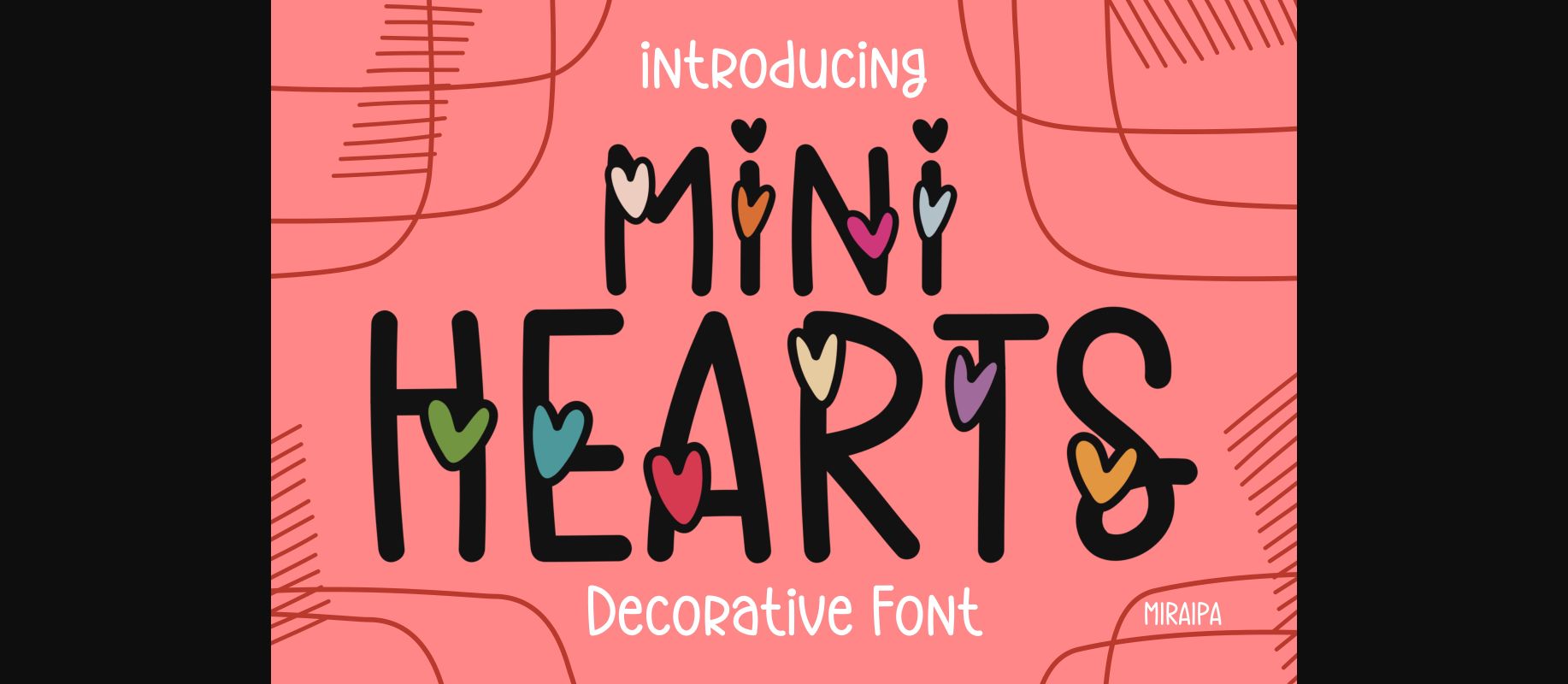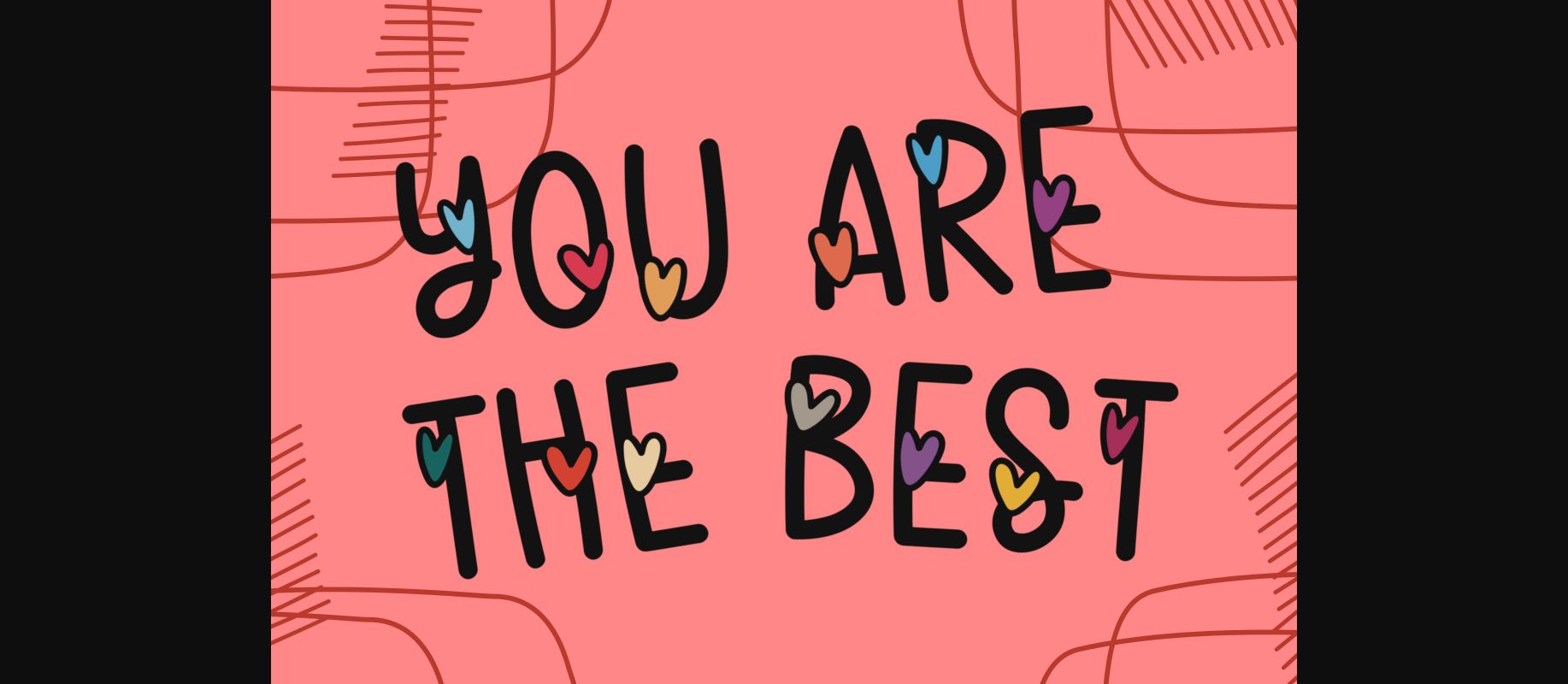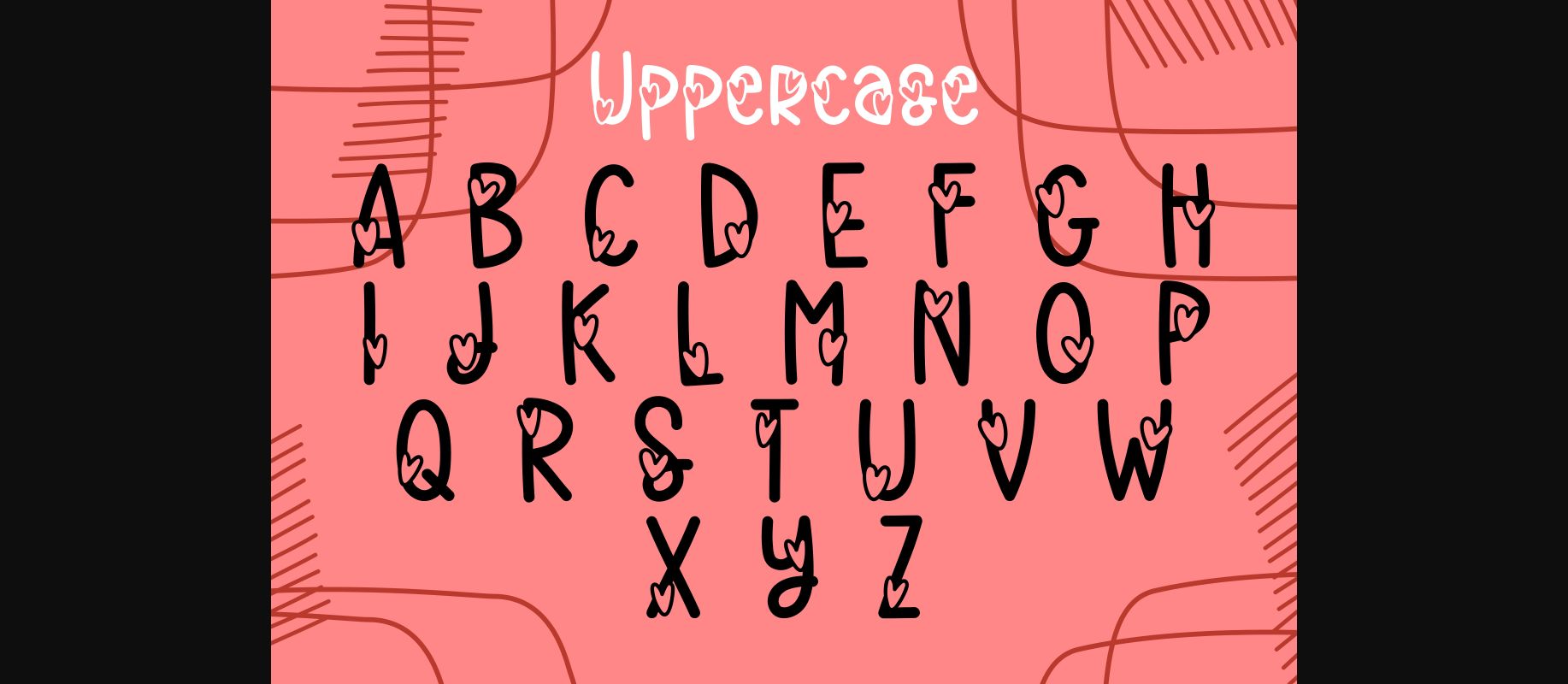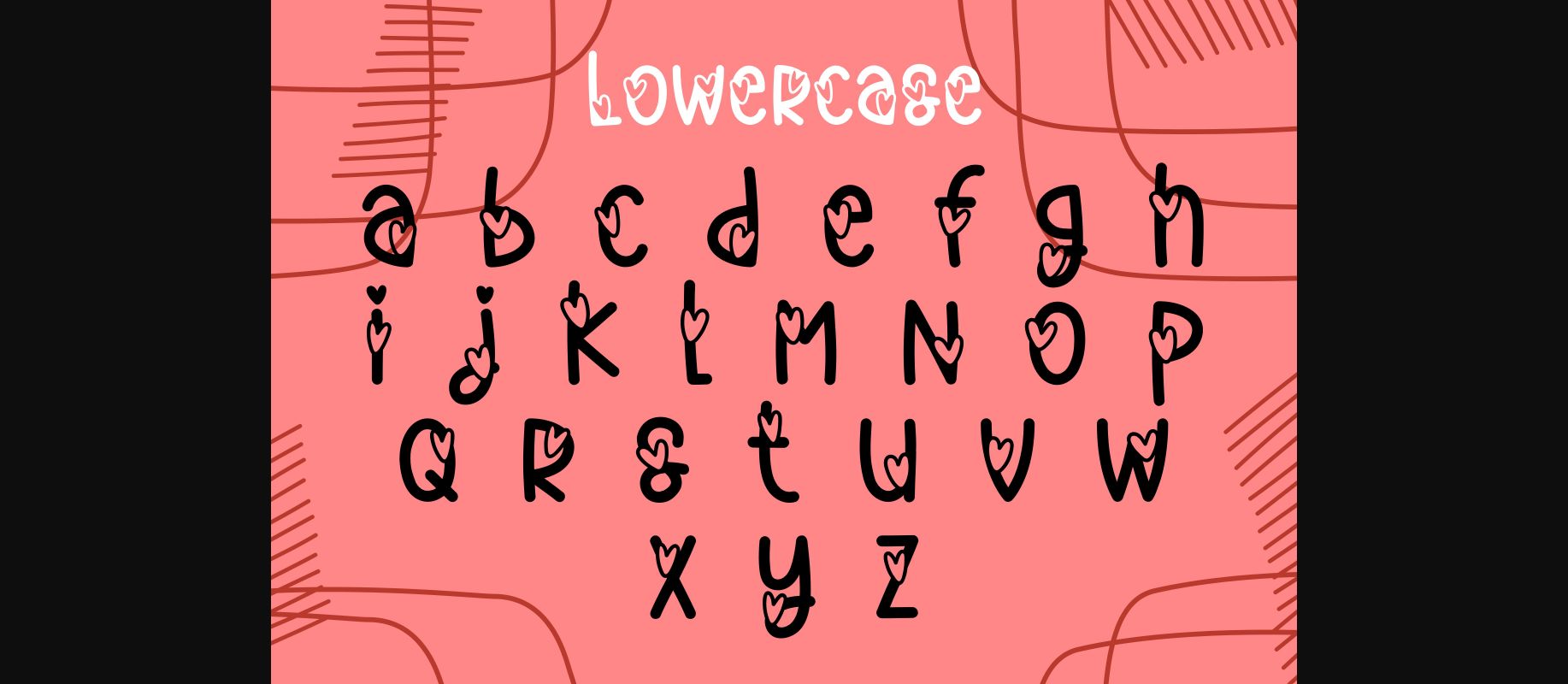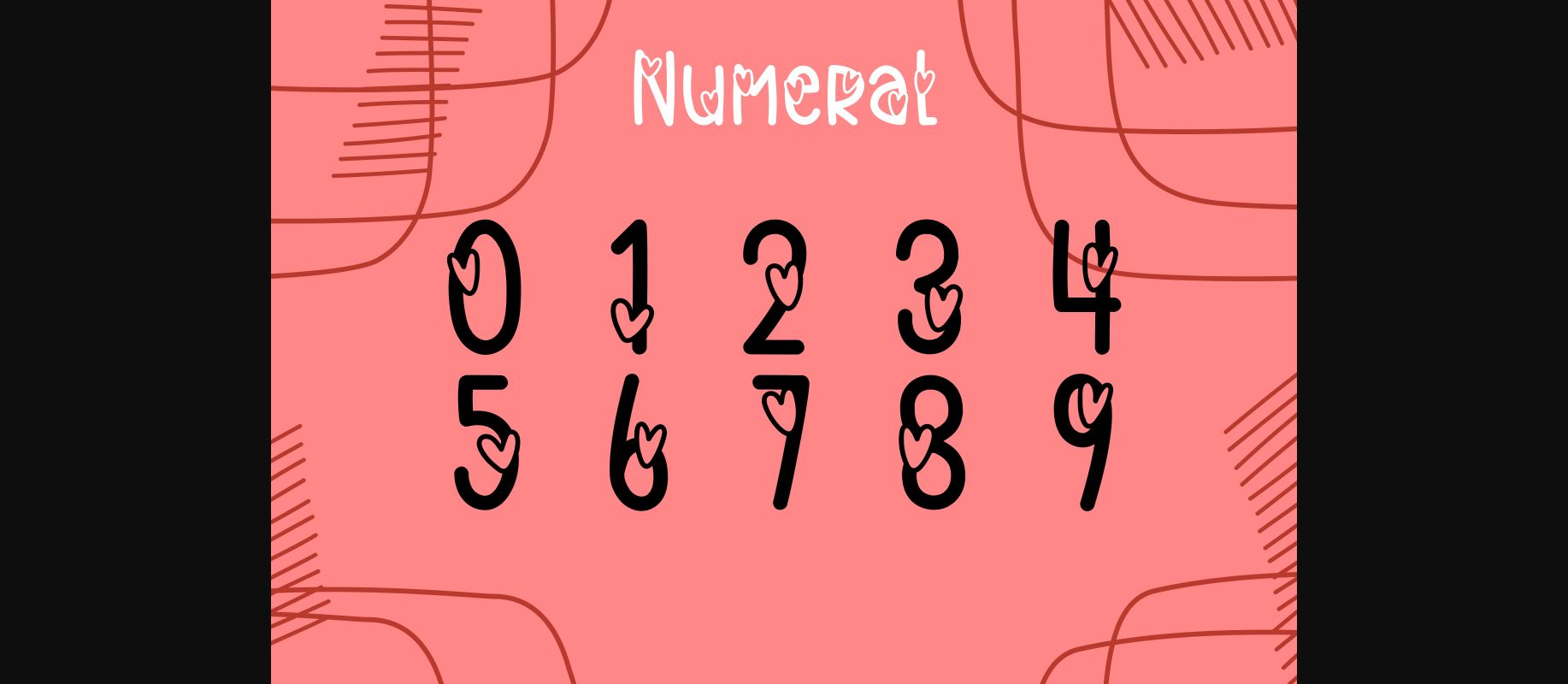
About Mini Hearts Font
Mini Hearts is a cute and friendly handwritten decorative font. This original look will appeal to a wide range of crafty ideas, from letterheads and titles to stationery.